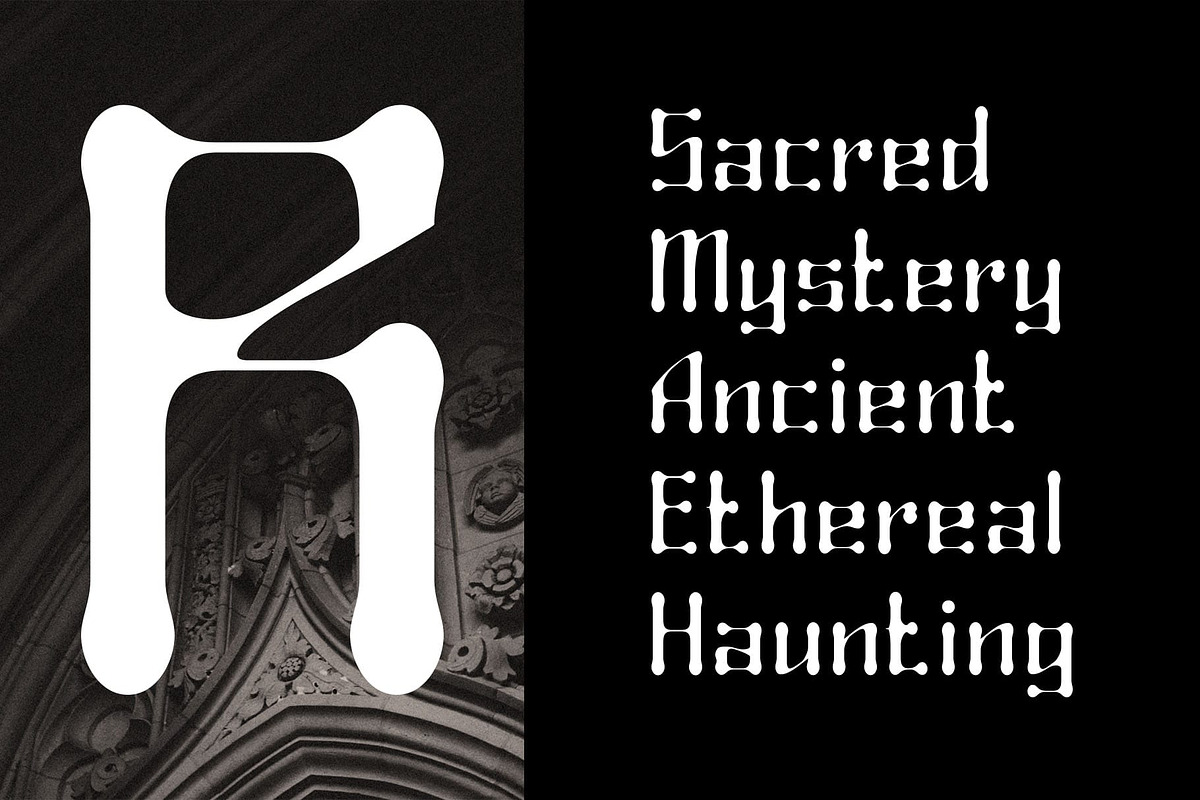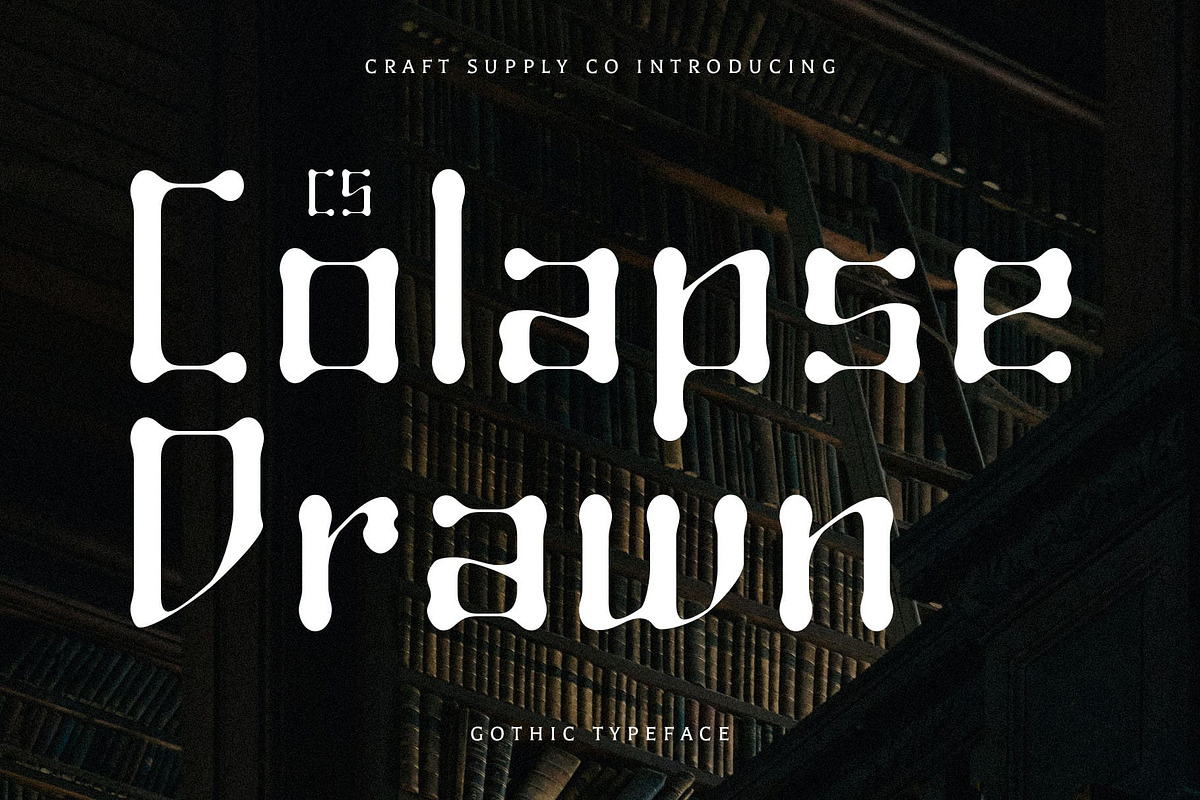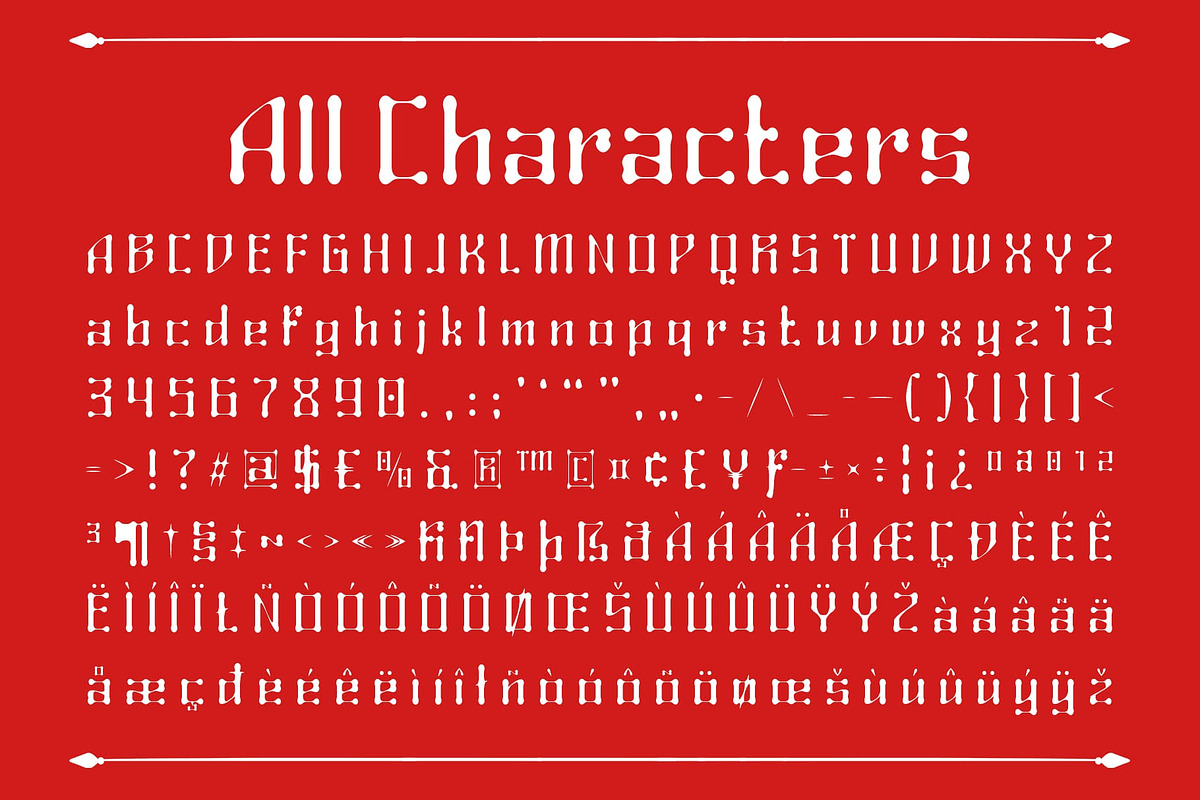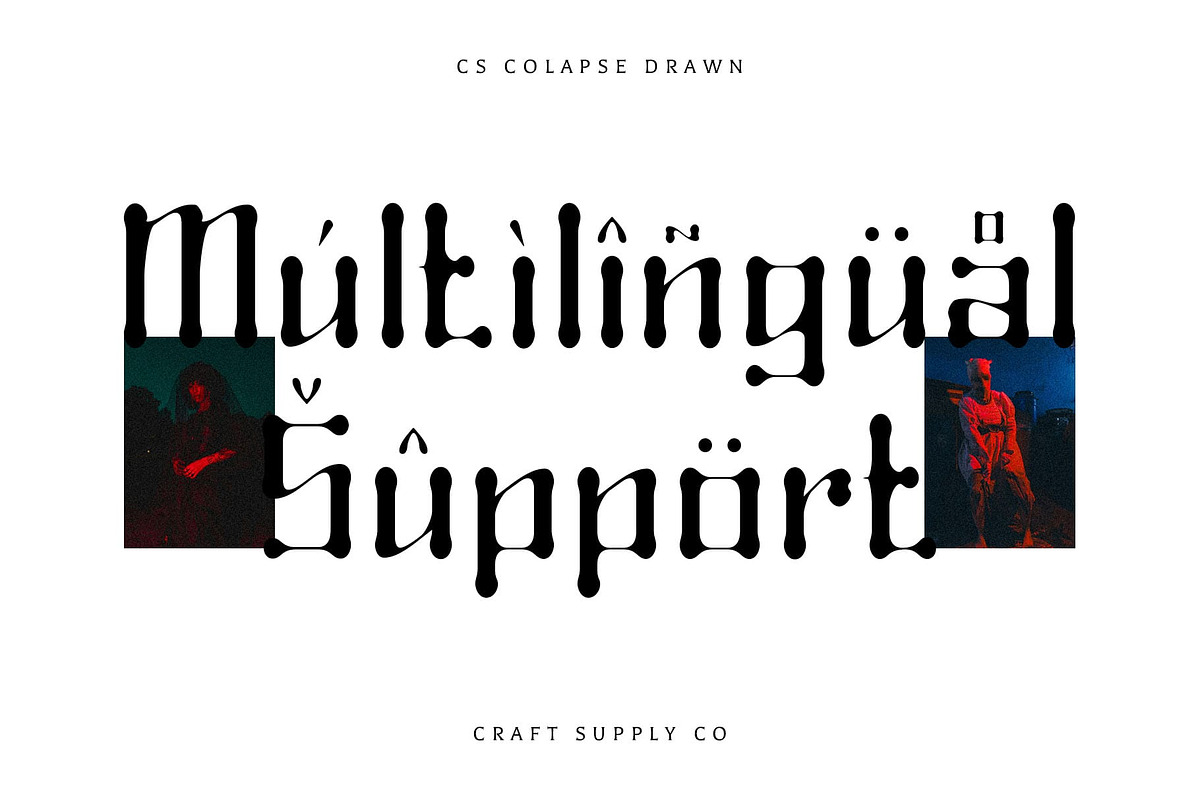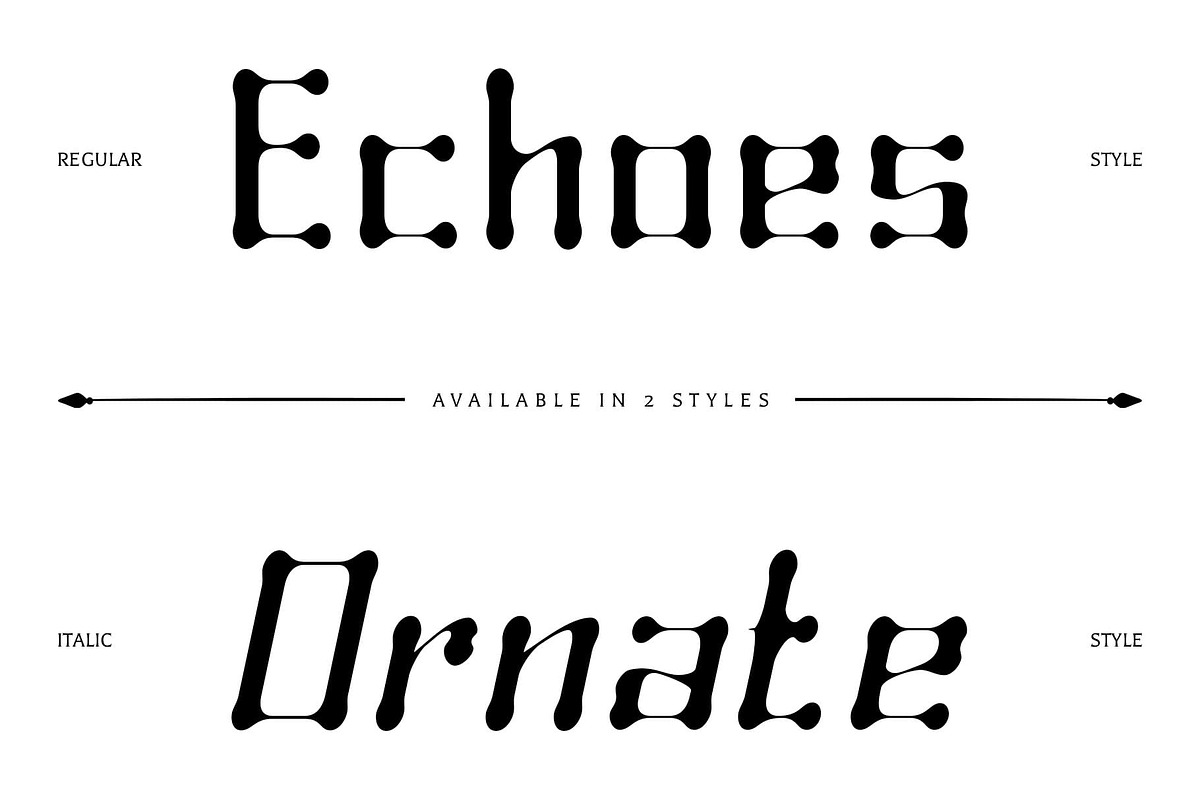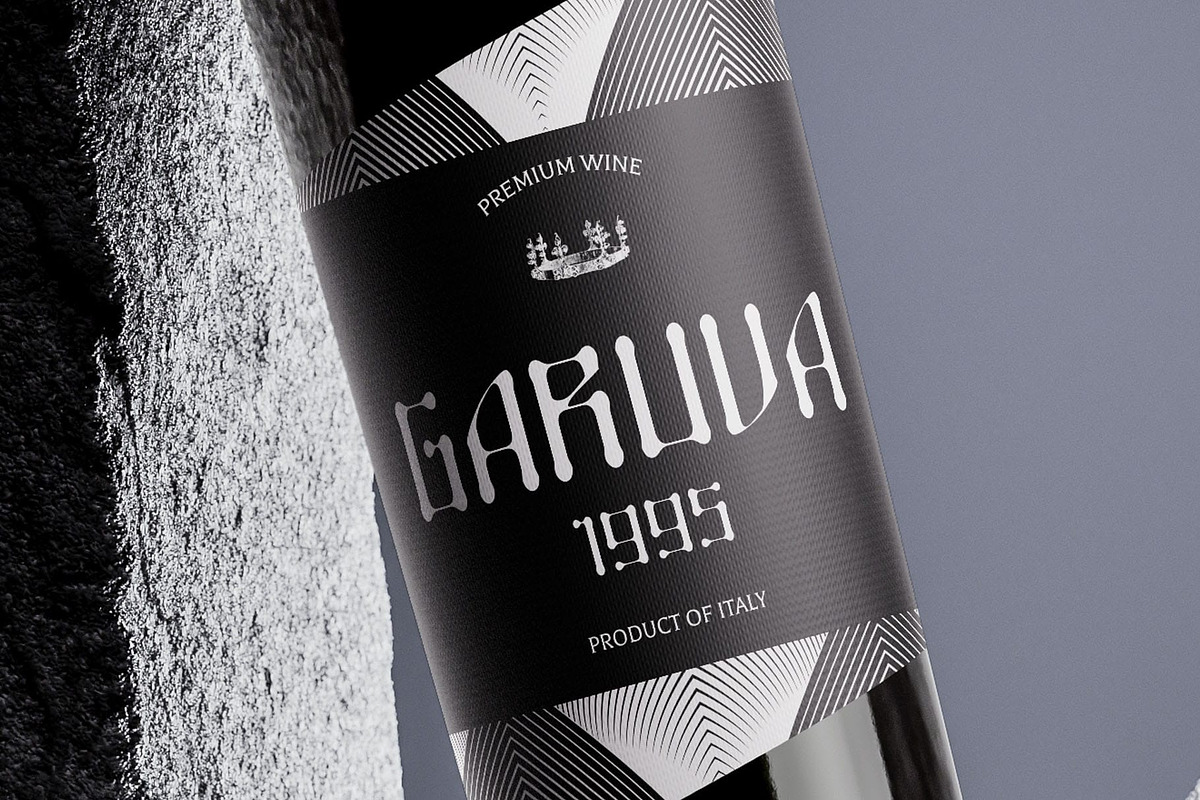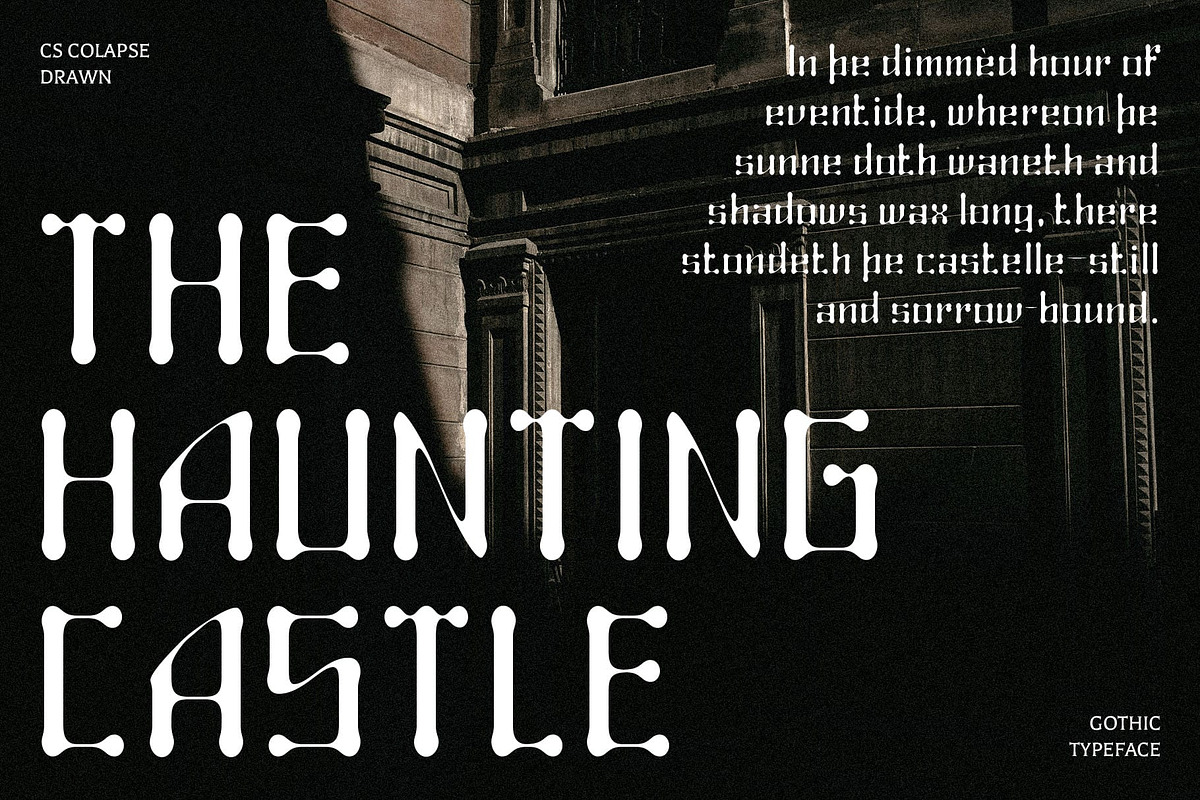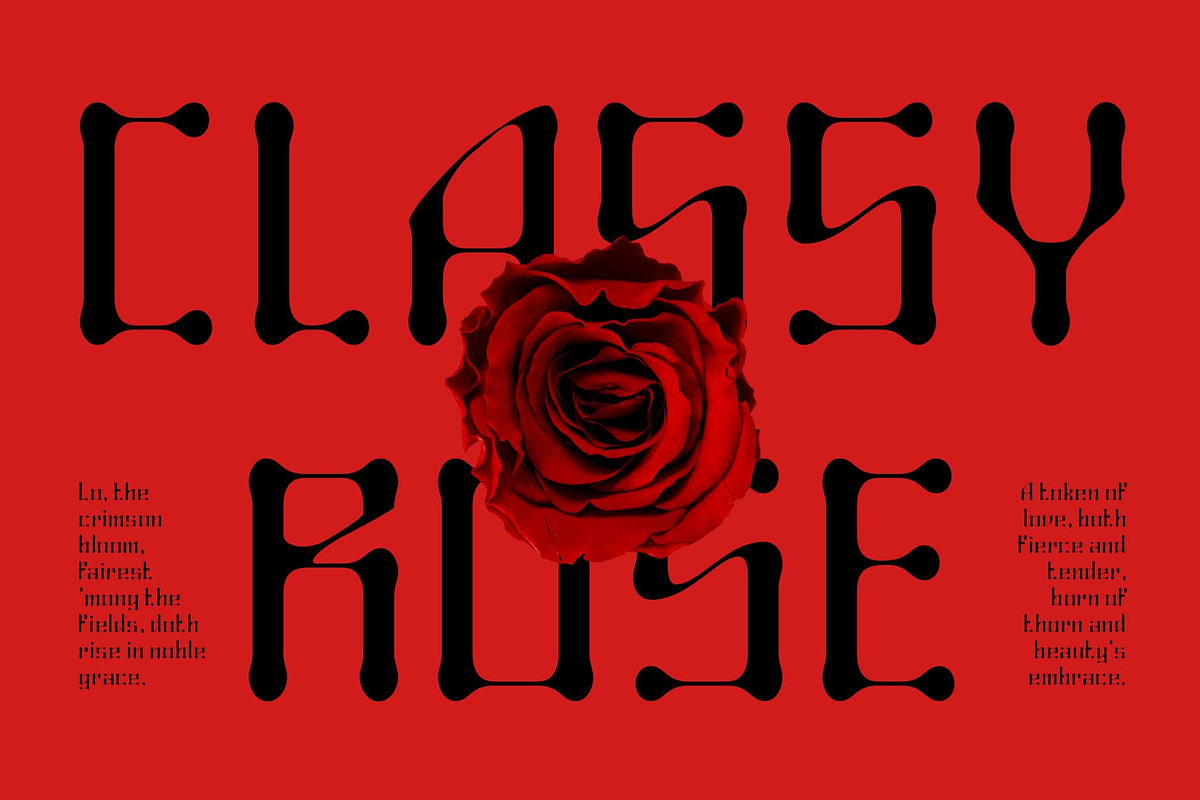
CS Colapse Drawn
CS Colapse Drawn – Bold Gothic Energy with a Handcrafted Edge
Powerful Gothic Form with Artistic Texture CS Colapse Drawn is a bold display font that merges the structured intensity of modern Gothic style with a raw, hand-drawn effect. Its strong letterforms evoke a commanding presence, while the rough, sketched texture adds an expressive, human element that breaks convention and amplifies visual impact.
Drawn Effect for Grit and Authenticity The hand-drawn details introduce a rough, textured layer that enhances the font’s dark personality. This drawn treatment brings out an organic and rebellious edge—perfect for designs that need to feel raw, moody, and alive with character.
Dark, Daring, and Distinctive Designed to communicate a bold aesthetic, this artistic font is ideal for projects that embrace the unconventional. Its dark and mysterious tone suits music themes, horror visuals, underground branding, and alternative fashion—where visual strength and originality matter most.
Expressive Typography for Creative Freedom This mysterious font is not just bold—it’s adaptable. Its expressive design works across both digital and print platforms, making it perfect for everything from album covers, posters, zines, merchandise, to social media content. Whether you’re creating for a niche alternative audience or crafting a visual identity for a bold brand, this font provides a visual language that is both commanding and artistic.